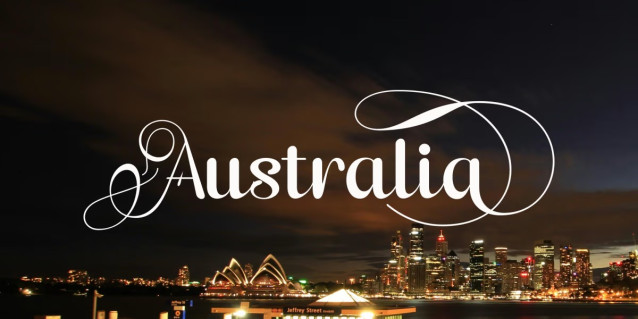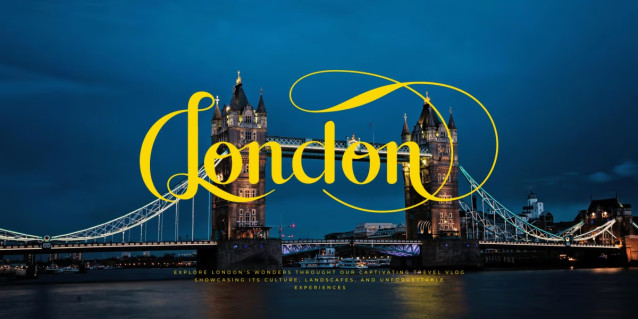
Plavine Font
Plavine Font is an elegant Latin font that beautifully balances timeless classic forms with a refined modern touch. Its carefully designed letterforms feature clean lines and subtle contrast, resulting in a smooth, graceful rhythm that enhances readability and visual harmony. Plavine’s sophisticated aesthetic makes it a versatile choice for branding, luxury packaging, fashion editorials, book covers, and high-end design projects that seek a polished, professional look. Whether used in headlines or body text, Plavine brings a sense of elegance and modern sophistication to any composition.